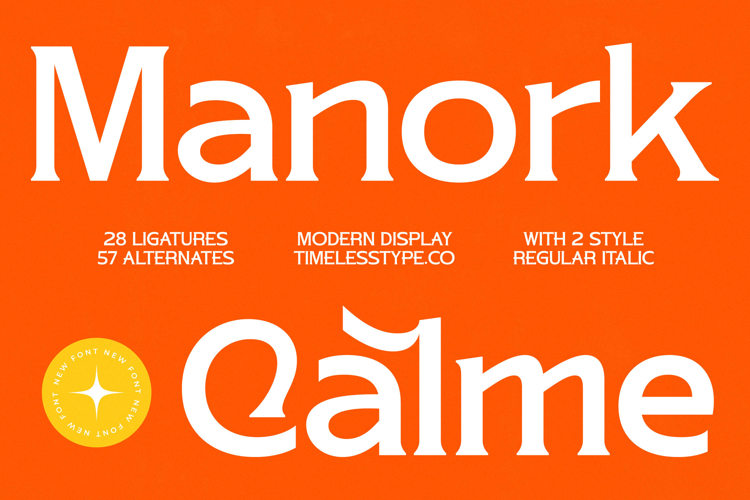
Manork Calme - Modern Display Font
Elevate your designs with timeless elegance and contemporary flair. Introducing Manork Calme - Modern Display Font, a sophisticated display serif that masterfully blends classical proportions with a distinctly modern aesthetic. Its refined serifs and harmonious curves exude an air of luxury and distinction, making it an instant focal point for any creative project demanding visual impact.
Experience unparalleled design flexibility and global reach with Manork Calme - Modern Display Font. Featuring an impressive suite of 28 ligatures and 57 alternates, this typeface provides extensive creative options to customize your typography and achieve a truly unique expression. With its extensive multilingual support, Manork Calme - Modern Display Font adapts seamlessly across global markets, making it incredibly versatile for international projects.
Craft an unforgettable brand identity that speaks volumes. Manork Calme - Modern Display Font is the quintessential choice for luxury branding, high-end product packaging, and exclusive editorial design. Its commanding presence is perfect for website headlines, fashion labels, magazine layouts, and promotional materials where conveying premium quality and sophistication is paramount.